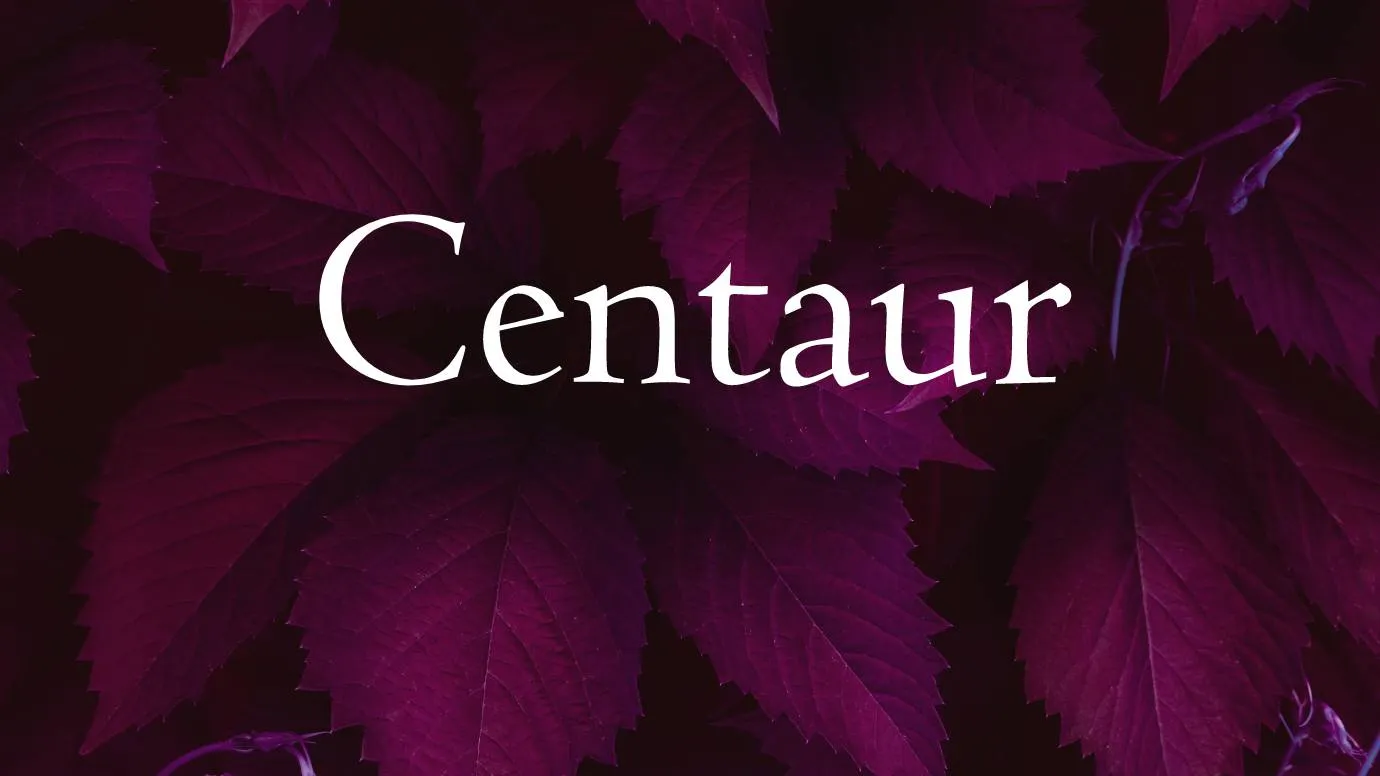
Centaur Font Family constitutes a forward-looking serif font family created by Bruce Rogers, a renowned book and typeface designer. Its design draws inspiration from the Renaissance-era prints of Nicolas Jenson, dating back to 1470. Rogers employed this font in his work on the Oxford Lectern Bible.
NameCentaur Font
DesignerBruce Rogers, Frederic Warde
FoundryMonotype
StyleSerif
Date Released1914